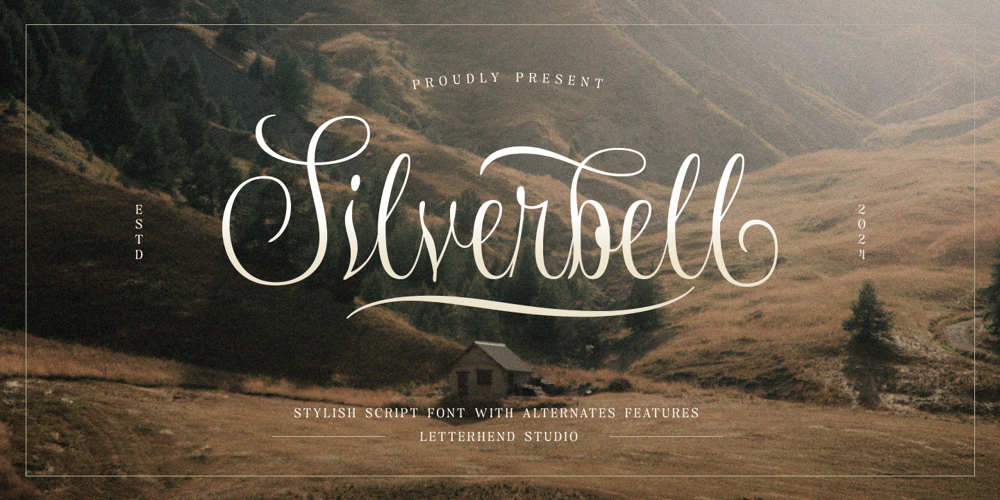
Silverbell Font Family was designed by Hendry Juanda and published by Letterhend. Silverbell contains 1 styles and family package options. Silverbell is a timeless script font featuring stylish swash, promises to elevate your designs with an air of classic beauty and elegance.Whether you’re crafting formal documents, designing stunning invitations, creating alluring branding materials, or fashioning elegant packaging, Silverbell effortlessly enhances your work with its timeless charm and sophistication.Features : Uppercase & lowercase Numbers and punctuation Alternates & Ligatures Multilingual Support PUA encoded